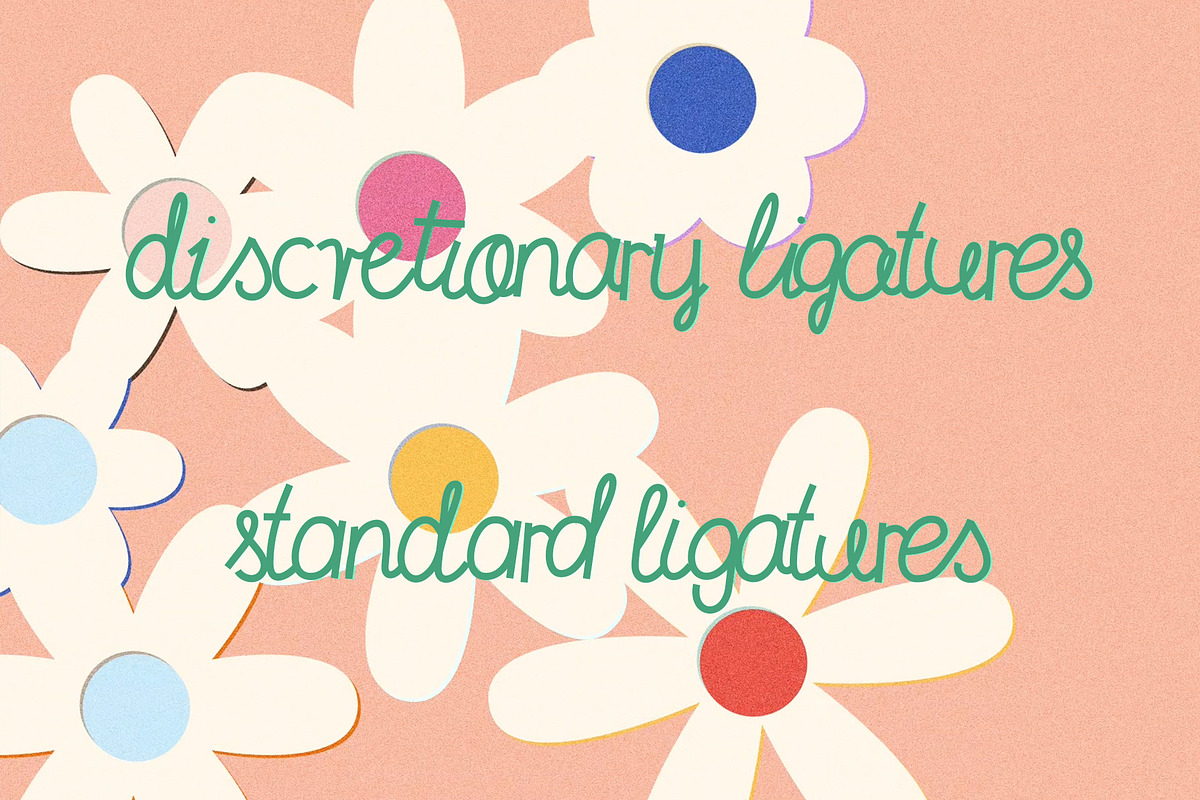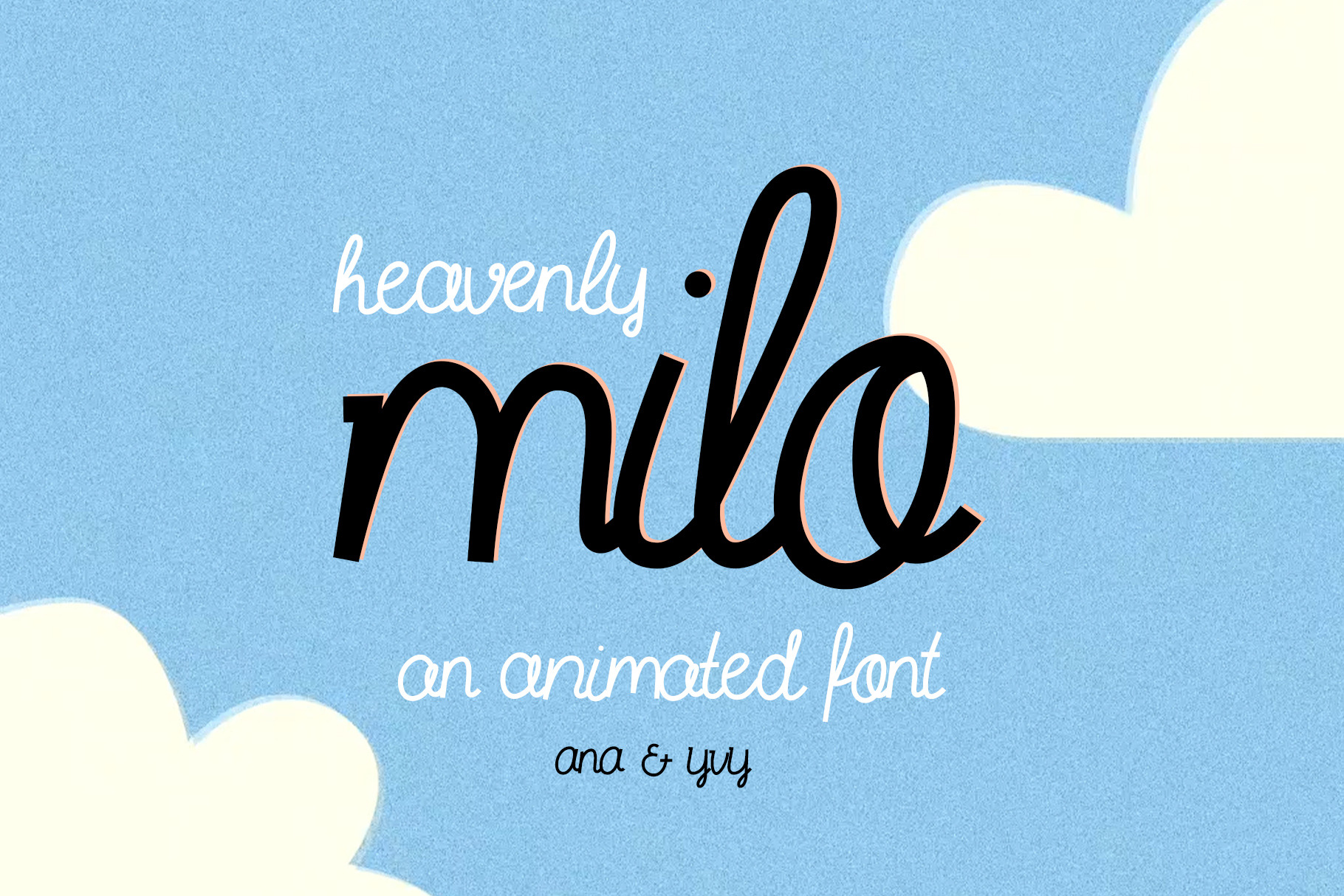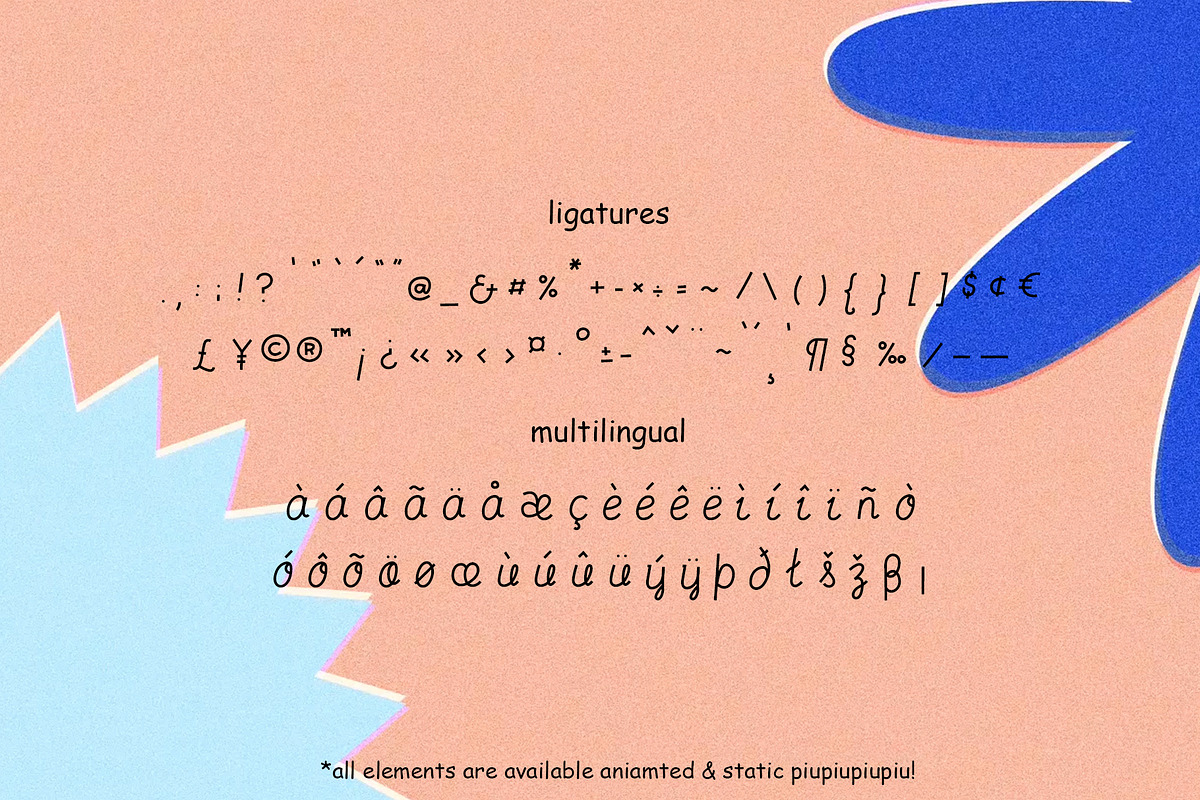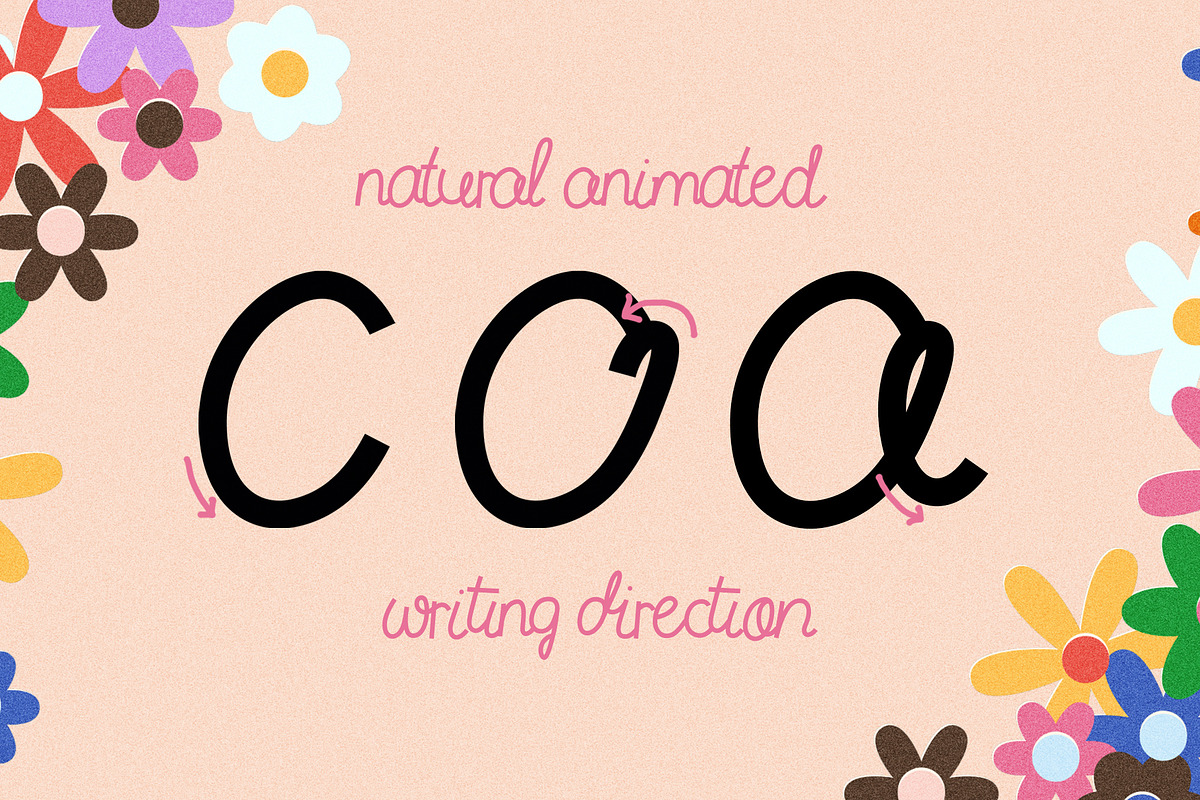
Animated Font - Heavenly Milo
Say hello to Heavenly Milo ✏️ a fun animated & static handwritten font for your next quote or notes project.
Perfect for happy quotes, handwritten notes, fun digital greeting cards, and of course stand-out branding.
animated letters, numbers and punctuation in 2 speed styles: quick (15sec) & normal (30sec). The letter builds up and builds back at the end of each animation.